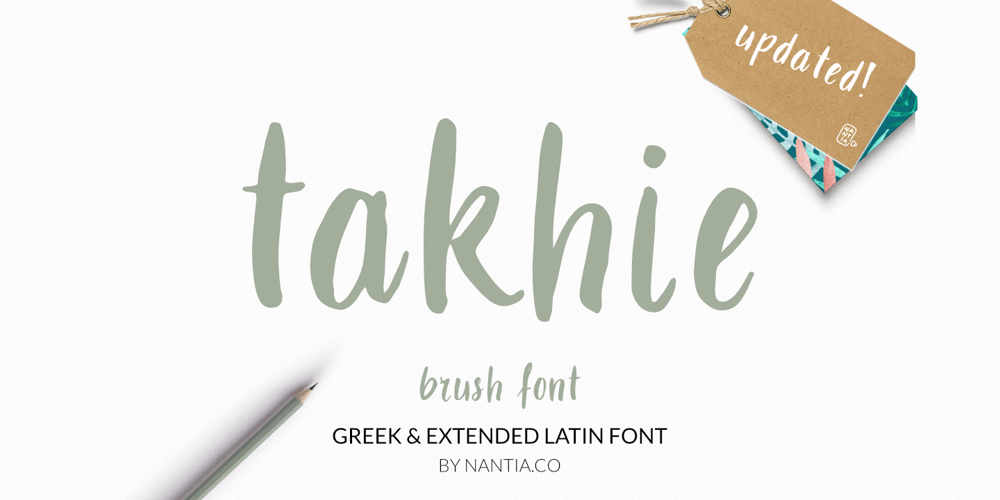
Takhie Font Family was designed by Konstantina Louka and published by Nantia.co. Takhie contains 2 styles and family package options. The Takhie Pro Multilingual Brush Font is a 100% hand-drawn decorative font with which you can achieve a handwritten-type lettering feeling. TThis typeface is a multilingual lettering font with Greek (of course), Latin characters and diacritics. The style of the font is perfect for your modern graphic design needs. Also, the font has a really nice flow so you use it in a large text if you want to give them a touch of personality. In addition, this typeface can be used on social media content, for branding or packaging. Also, this font is perfect for crafting and invitations material.